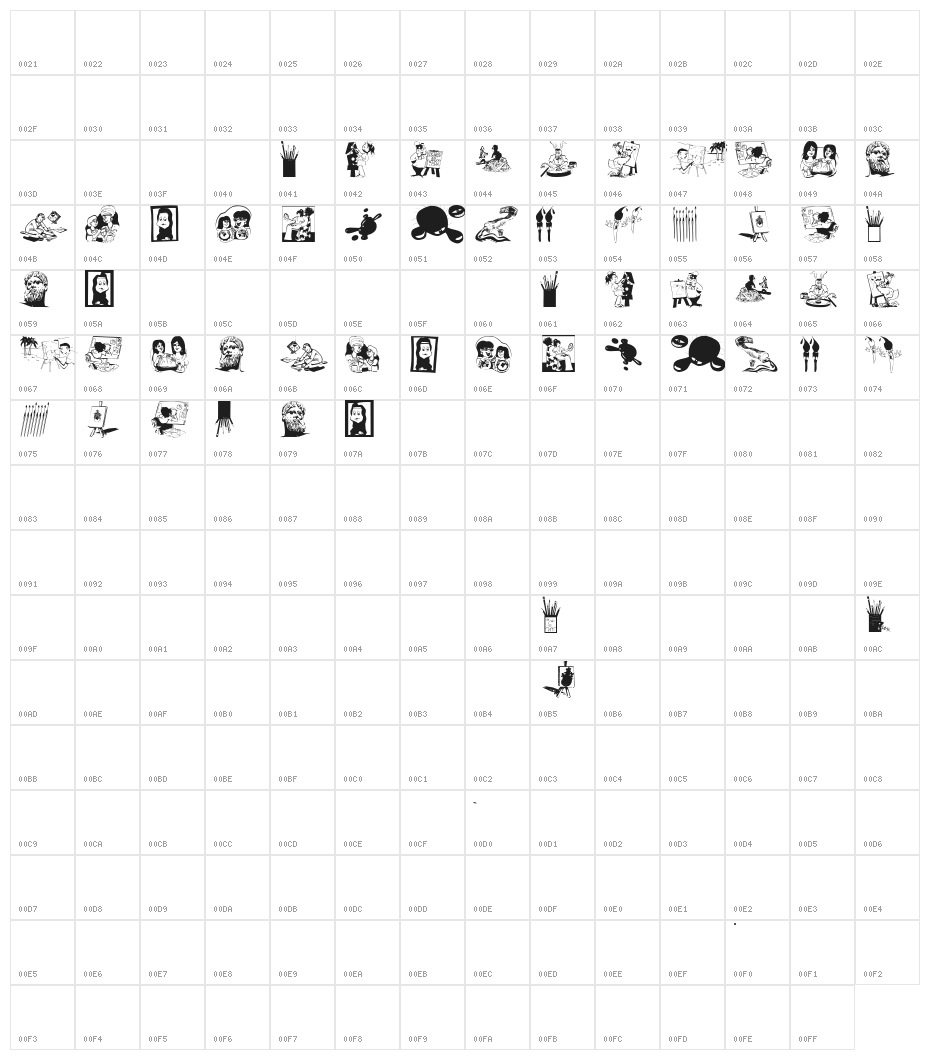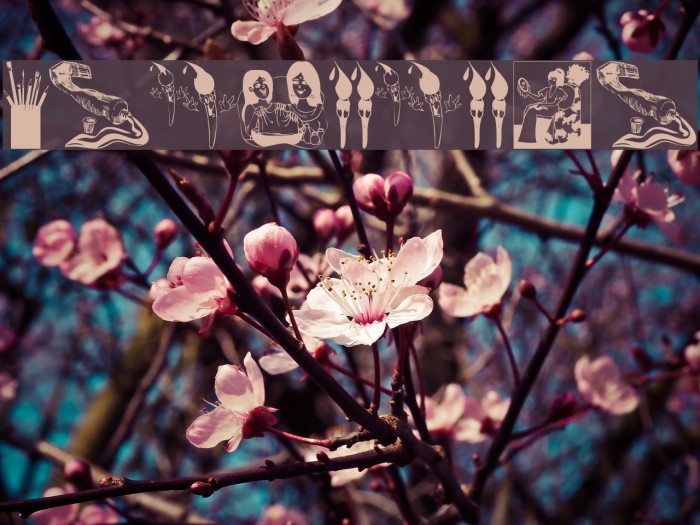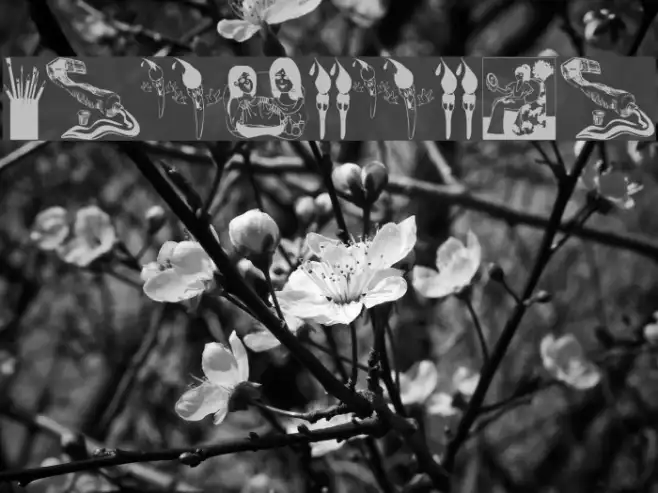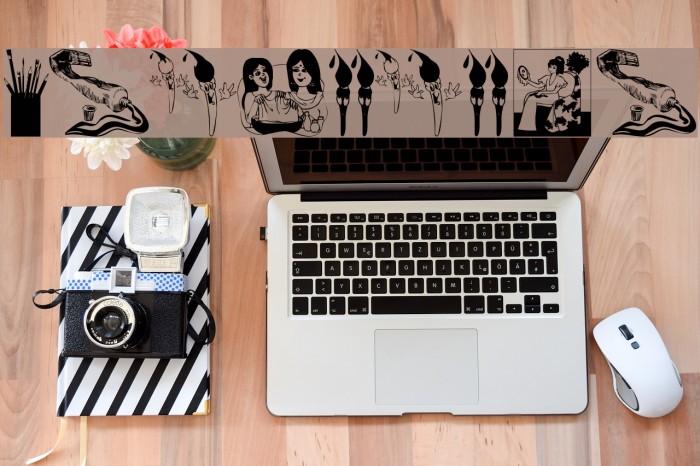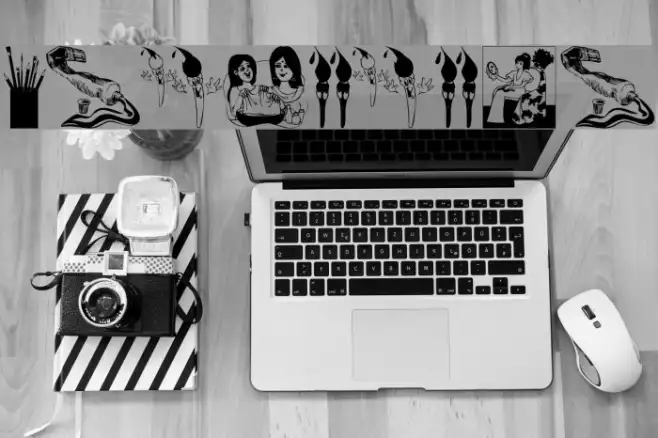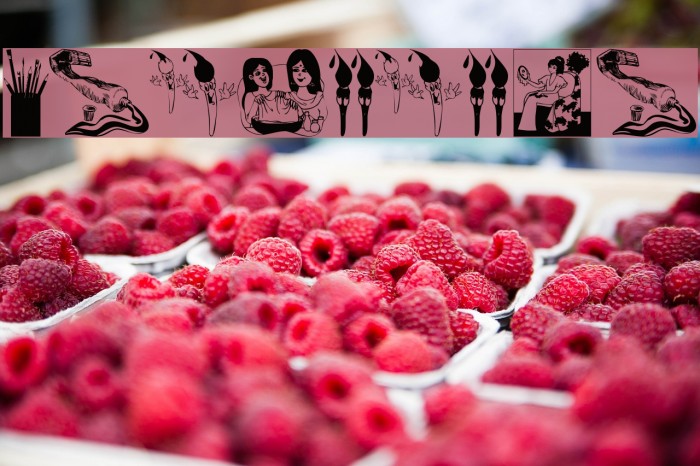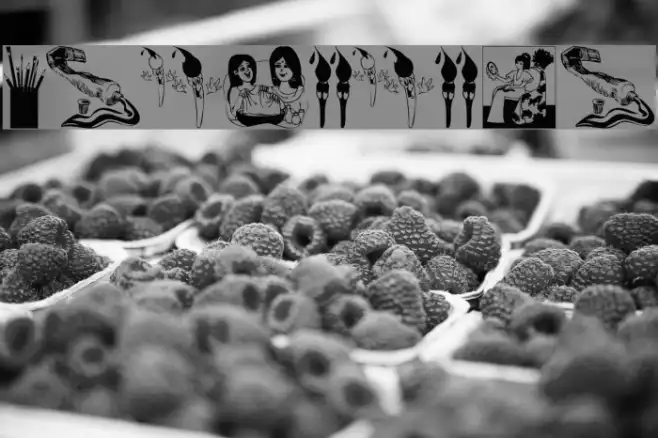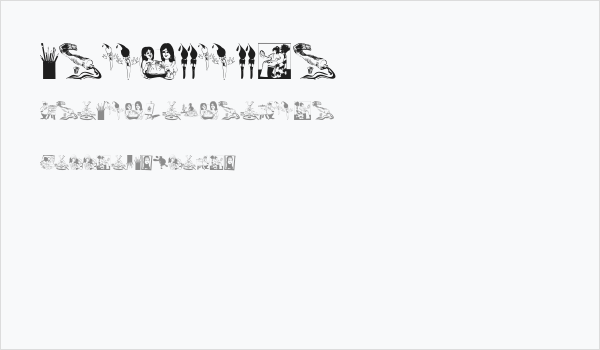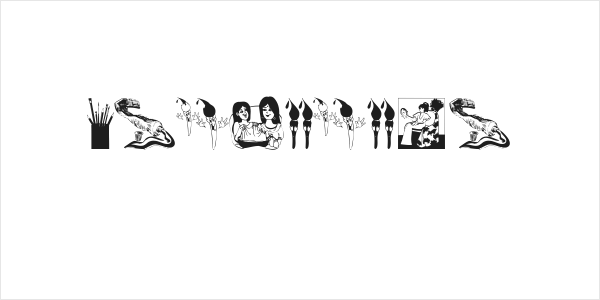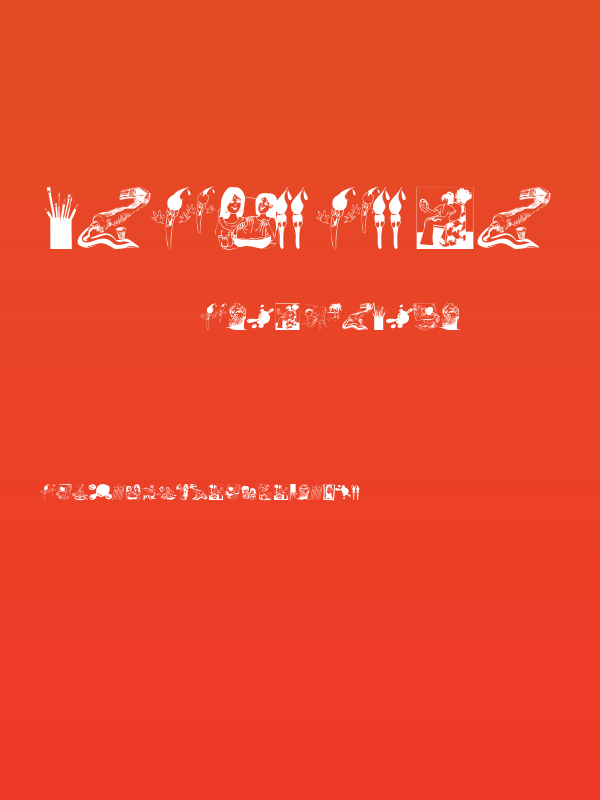
ArtistsOr Font
ArtistsOr Description
A decorative dingbat font featuring detailed black-and-white illustrations of artists, art supplies, and famous artworks. Each character is represented by a unique art-related icon, including painters, palettes, brushes, easels, and portraits.
| Overall Style | Decorative, Playful, Artistic |
| Use Case | Decorative elements, Themed graphics, Educational visuals |
| Proposed Projects | Art education materials, creative event posters, art class flyers, museum brochures, decorative borders. |